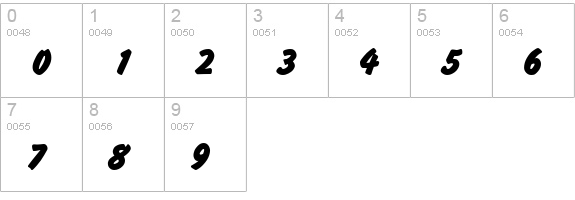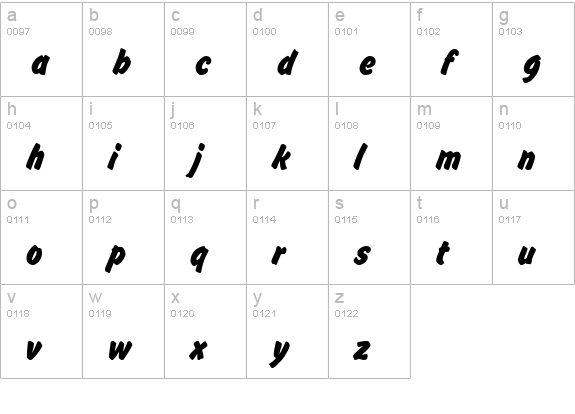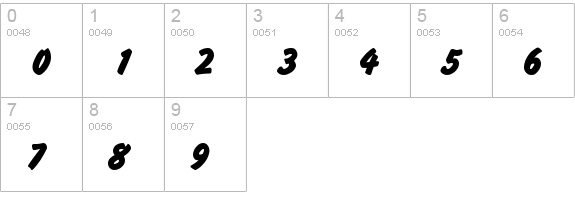
Brush Hand Font Details
Brush Hand font is a charming and stylish typeface that exudes a sense of creativity and playfulness. With its hand-drawn appearance and flowing brush strokes, this font is perfect for adding a personal touch to your designs. Whether you're working on invitations, posters, or branding materials, Brush Hand font will bring a unique and artistic flair to your projects. Best of all, Brush Hand font is completely free to use and is available for download at FontsMarket.com. So go ahead and bring a touch of handcrafted elegance to your designs with Brush Hand font today!